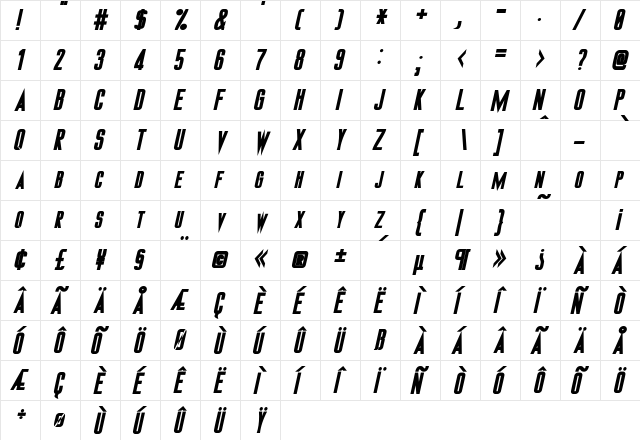
DemorestSCapsSSK BoldItalic
Design Context for DemorestSCapsSSK Typeface
DemorestSCapsSSK is a composed and adaptable typeface that performs quietly and consistently across a wide range of design contexts. Its italic angle brings a sense of urgency and motion to the letterforms. Its bold stroke weight gives it real presence on the page.
Pro Tip: Use DemorestSCapsSSK for emphasis, pull quotes, and subheadings where its slanted energy can add rhythm to the layout.